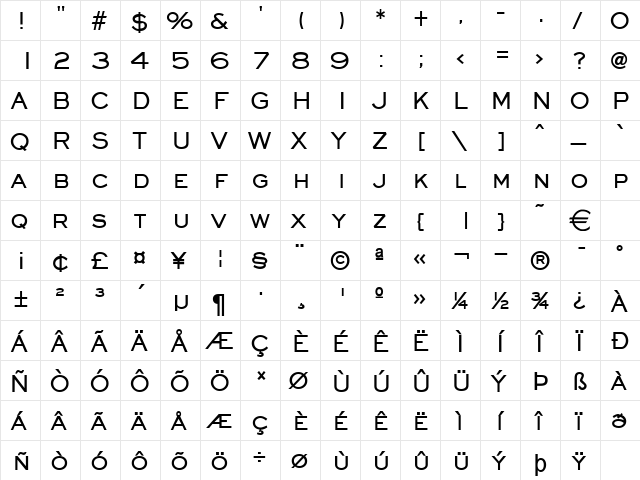
Eyeglass Bold
Design Context for Eyeglass Typeface
Eyeglass offers clean, dependable letterforms without strong stylistic allegiance, making it a practical choice for designers who need flexibility. Its bold stroke weight gives it real presence on the page.